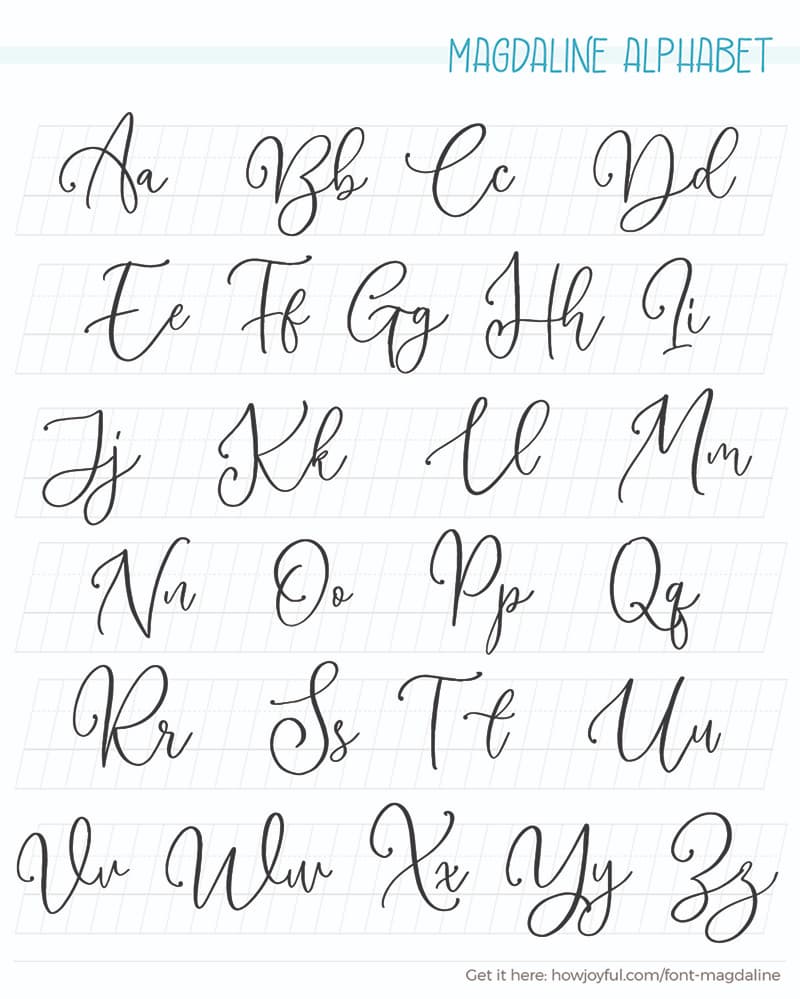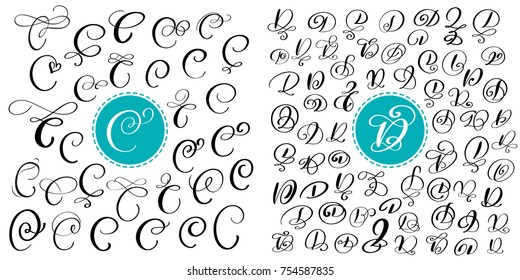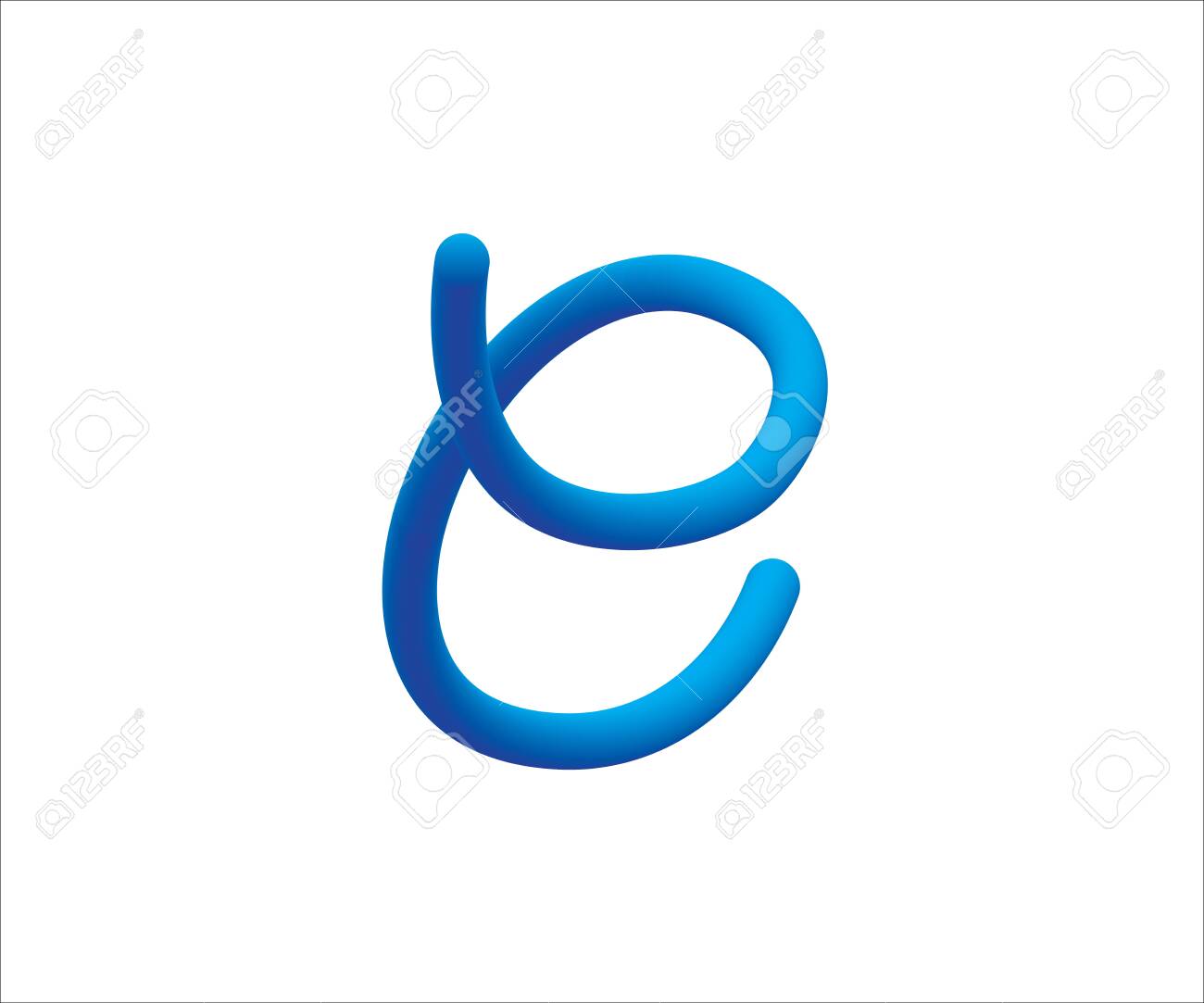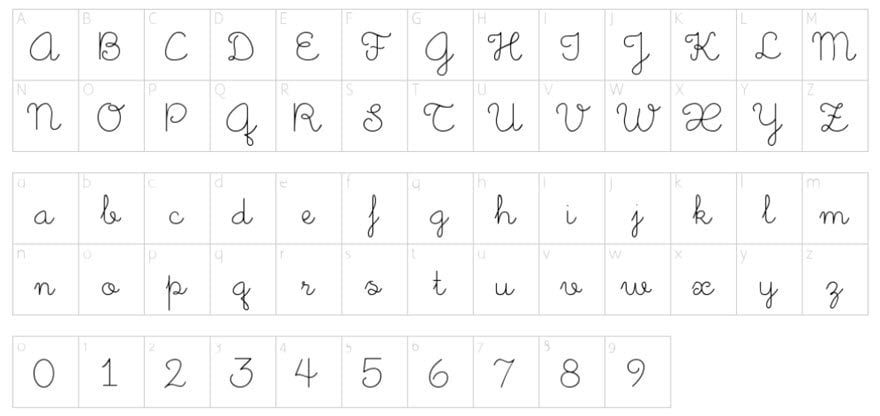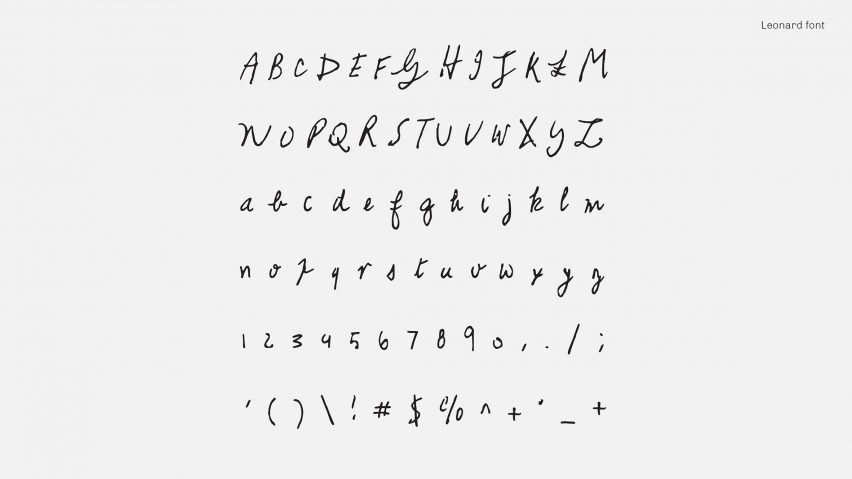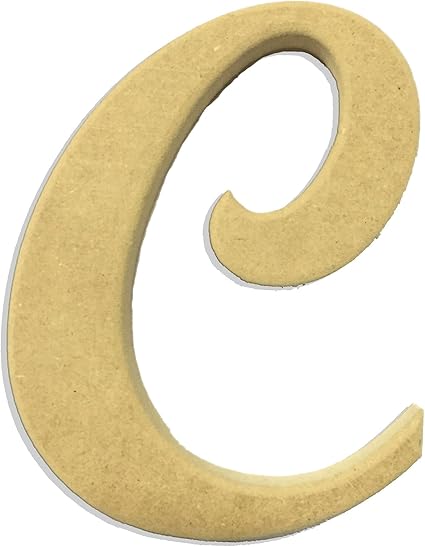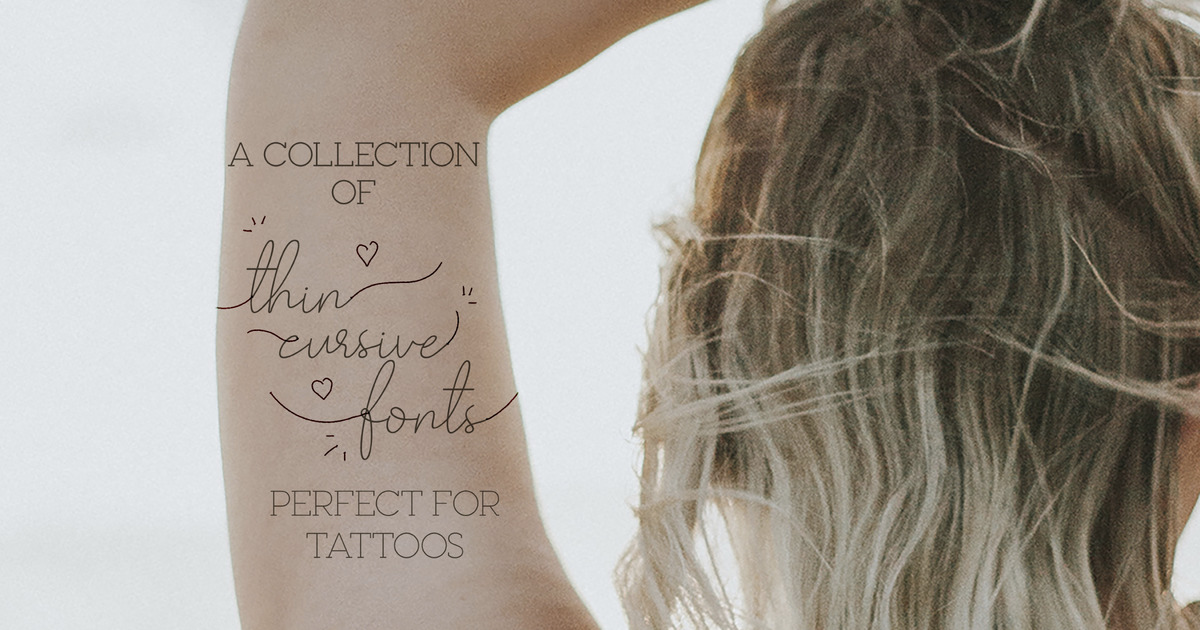
Cursive letter c fonts. Dec 14 2019 - Explore Patricia Whites board Cursive fonts alphabet on Pinterest. This method of scriptwriting was first used by Platt Rogers Spencer. However for different languages cursive writing can mean differently for example for eastern Asian languages like Chinese cursive writing focuses more on the formation and connectedness of strokes within an individual character while for Latin Cyrillic and Arabic.
Letters may be joined or unjoined. One speciality of the cursive font is the stylishness of the font. We also provide delightful beautifully crafted icons for common actions and items.
In turn these letters represent simple uppercase alphabets. Cursive letter symbols are great for making your message on social media stand out. Cursive also known as joint writing or running writing or handwriting is any style of penmanship in which the symbols of the language are written in a conjoined andor flowing manner generally for the purpose of making writing faster.
In the Arabic Latin and Cyrillic alphabets many or all letters in a word are connected sometimes making a word one single complex stroke. See more ideas about hand lettering alphabet letters lettering alphabet. Note that is a font isnt showing for you if you just see plain square boxes or question marks then its because your browser doesnt quite support all of these fonts yet.
Basically learners should begin with letters C E G L and O. The cursive handwriting style is functional and intended to be used for everyday writing. Coneria Script - Måns Grebäck.
We have 38 free Cursive Tattoo Fonts to offer for direct downloading 1001 Fonts is your favorite site for free fonts since 2001. Admiration Pains - Jonathan S. Cursive is a style of a font where the letters touch each other.
Apr 24 2020 - Explore C Treuils board Cursive letters font on Pinterest. Download them for use in your digital products for Android iOS and web. Cursive fonts simply emulate cursive handwriting in which letters are usually connected in a slanted and flowing manner.
Cursive letters as the name suggests are writing letters in curved forms. Just look at the difference between.
For more artistic styles you will want to look at calligraphy or hand-lettering. Cursive font is a type of font which was first used back in the fifth century. Google Fonts is a library of 1052 free licensed font families and APIs for conveniently using the fonts via CSS and Android.
That is the characters of the writing are joined. Olivia Alphabet Fonts Cursive font Wedding font Calligraphy font Handwritten font Cursive alphabet letters Cursive font for Cricut Font OTF WellFontShop. Also when you use cursive fonts in your document the letters would be in a flow and the text would appear as if it is hand-written.
Look at my post. Calligraphy is also one of the most ancient styles of writing which now consists of cursive letters. Cursive fonts mimic the style of human penmanship where the letters flow together.